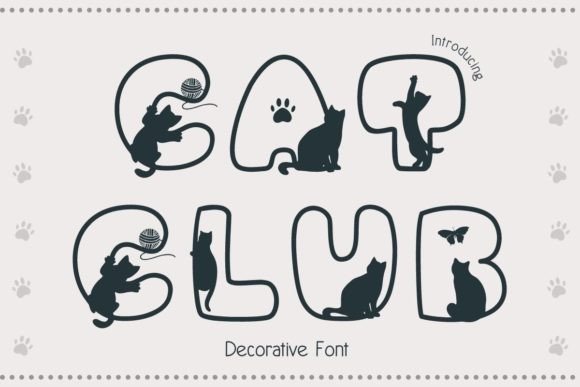
Introducing Cat Club Font, the ultimate choice for adding a touch of adorable charm to your designs! Created by the talented AnningArts, this decorative font is a must-have for anyone in search of the Best Fonts for Product Design.
With its captivating combination of multiple cat silhouettes and transparent fonts, Cat Club Font is a true masterpiece. This unique fusion creates a whimsical and playful style that is bound to capture the hearts of your audience.
Let your creativity run wild with Cat Club Font! Whether you're designing banners, content, mugs, cards, shirts, stationery, or social media posts, this font will effortlessly elevate your creations to a whole new level. Get ready to make a lasting impression with its irresistible cuteness.
Immerse yourself in a world of endless possibilities as you explore the versatility of Cat Club Font. Its wide range of adorable cat silhouettes allows you to customize and personalize your designs, making each one truly one-of-a-kind. Stand out from the crowd with this font's charming and quirky style that is sure to turn heads.
But Cat Club Font isn't just about aesthetics; it's also about making a statement. Embrace the emotional connection that this font evokes, and watch as your audience falls in love with your designs. Spark joy, create smiles, and leave a lasting impression with every project you undertake.
Downloading Cat Club Font is like unlocking a treasure trove of creativity. Embrace the joy of working with a font that not only speaks volumes but also amplifies the impact of your message. Let your designs be a reflection of your unique personality and captivate your audience like never before.
What are you waiting for? Join the Cat Club Font revolution and add a touch of feline magic to your designs. Elevate your creativity, captivate your audience, and leave a lasting impression with this captivating and versatile font.
Give life to your imagination and let Cat Club Font be your trusted companion on your creative journey. Experience the power of this font today and witness the awe-inspiring results it brings to your designs.